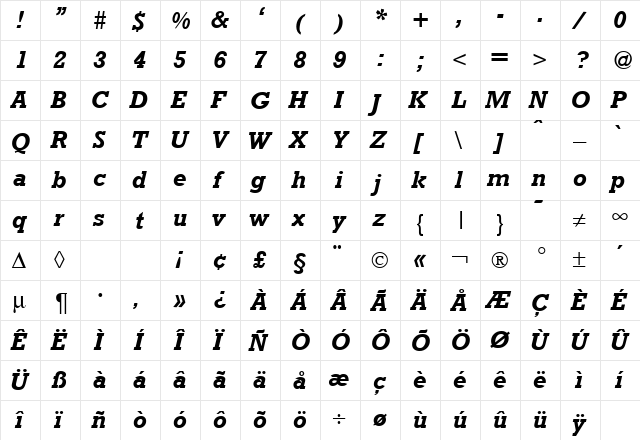
Rambault BoldItalic
Design Context for Rambault Typeface
Rambault offers clean, dependable letterforms without strong stylistic allegiance, making it a practical choice for designers who need flexibility. Its italic angle brings a sense of urgency and motion to the letterforms. Its bold stroke weight gives it real presence on the page.
Pro Tip: Use Rambault for emphasis, pull quotes, and subheadings where its slanted energy can add rhythm to the layout.